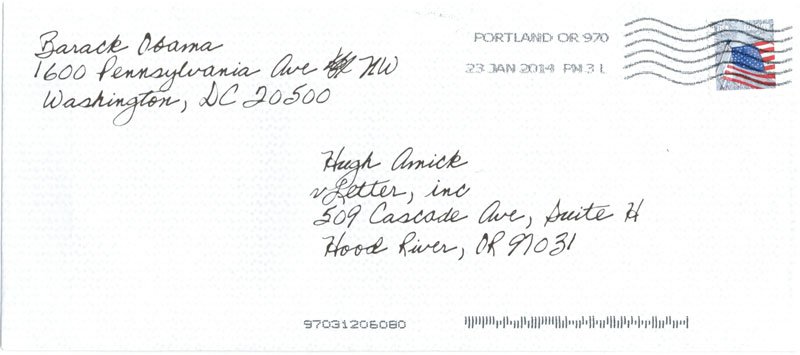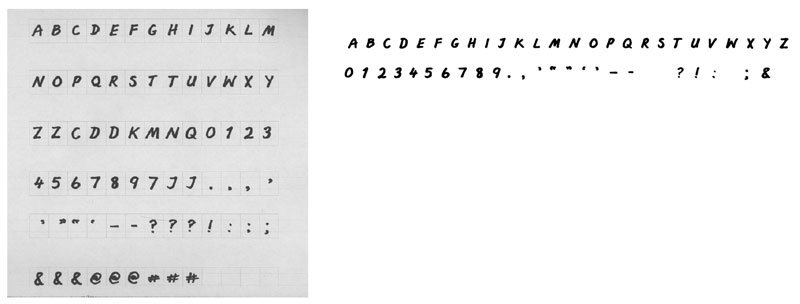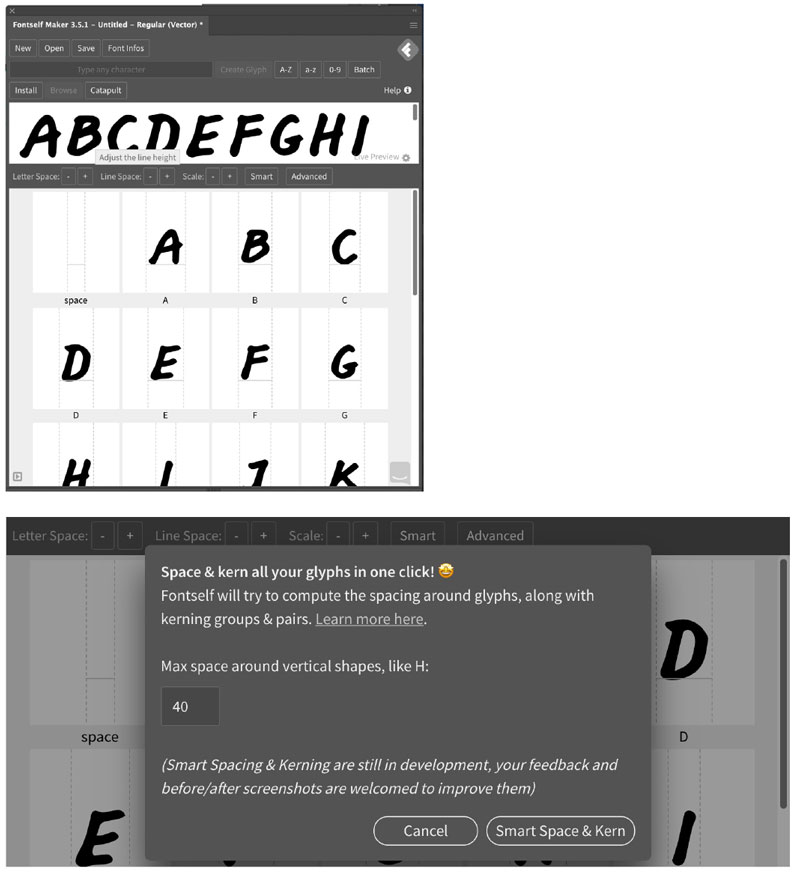
Working with Handwriting Fonts
Handwriting fonts can help you connect with your audience—just be sure to avoid the clichés.
Playful, elegant, or quirky, type with a handwritten vibe can add authenticity or informality—or possibly both—to your print or screen projects. Handwriting fonts accentuate the personal and the organic. Used well, they can take a message and give it that extra something—be it warmth, friendliness, or humanity. Nostalgia is a powerful emotion and handwriting fonts can tap into fond memories. Like a typewriter font, handwriting reminds us of a pre-digital age—a mythical time when everything was cheaper, politicians were honest, and summers were longer. They can also convey a personal relationship between designer and audience. As consumers, we’re not stupid. We know it’s just a font, but we’re happy to suspend our disbelief—just as we do when watching a film or play. The conventions of drama differ from real life, and we accept them. Just as we seek out fiction to experience other lives and escape the humdrum of our own, we like to read handwritten type to escape the 9-to-5 of neutral body fonts. We’re aware of the artifice, but we’re happy to play along—up to a point.
But before we go any further, let’s start by defining what we mean by handwriting font. Distinctions between calligraphy, script, and handwriting are blurry—and I will wander back and forth over that blurred line, but here are some things to think about. Calligraphy involves the frequent lifting of the pen, whereas script is written with as continuous a line as possible. Both may be true of a handwritten font, but not necessarily. When someone mentions handwriting, we most likely think of cursive lettering. But it doesn’t have to be. The term handwriting font is really a catchall for a font that was done by hand, or perhaps more accurately, that was made to look like it was done by hand. As well as cursive options, this can include block lettering, chicken scratchings, the permanent marker look, and a wealth of other options that run the gamut from elegant and flowing to erratic and illegible (Figure 1).
Figure 1. Some of the different styles of handwriting font
Sourcing Handwriting Fonts
All the usual suspects: Dafont, Google Fonts, and FontSquirrel have an abundance of handwriting fonts available for download. In InDesign, Illustrator, and Photoshop, you can use the Fonts menu to filter by classification (Figure 2).
Figure 2. Filtering fonts by classification (left), finding and activating fonts using Find More, and finding fonts using the tags on Adobe Fonts (right)
Combine this with Find More option, and you can scroll through and preview all of the handwritten type available on Adobe Fonts and activate fonts on the fly. (If this seems too good to be true, well, it is—it’s often quicker to go directly to the website and preview and activate the fonts there.) On the Adobe Fonts site, you can also use the new tags feature to help refine your search. Unfortunately, there’s no easy way identify those fonts that offer stylistic alternates.
We don’t have to look far for inspiration. In fact, we can start with just pen and paper. Even if your handwriting has atrophied from lack of use in the digital age, it is still brimming with personality. (It really isn’t as bad as you think. And even if it is, that’s a look in its own right.) If all you need is a small passage of handwritten text for seasonings, then you can scan and vectorize your handwriting, or draw it directly onscreen using the Pencil or Brush tool in Illustrator. (See “How to Make Your Own Handwriting Font.”)
To see how others are using handwritten text, sites like Pinterest, Behance, and Fonts In Use, are treasure troves of inspirational examples (Figure 3).
Figure 3. FontsInUse.com is useful to find examples of how specific handwriting fonts have been used in projects.
Venturing outside (a big deal in these times), chalkboards, vintage signs, and graffiti can provide great ideas—take snapshots with your phone, and you’ll soon have a collection of source images to draw upon. Browse the shelves of any bookstore, and you’ll see many examples of the handwritten look (Figure 4).
Figure 4. Examples of book cover designs using handwriting fonts or hand lettering
You would expect to find this for children’s books, but it’s also true for fiction and cookery titles, where the use of hand lettering conveys the book’s uniqueness in a crowded market. Of course, it’s not always easy to tell if the designer has used a font or if the text is hand lettered, but that’s the point really.
Giving the Type Personality
Just like real handwriting, a handwriting font should have personality, which when you think about it is an oxymoron. Just because a font is called something like My Groovy Handwriting, doesn’t mean it’s organic. How can a product that is digitized, infinitely reproducible, and predictable, convey something that is as unique as a fingerprint? Repeating letters look the same in typesetting, but they aren’t identical when actually penned. To compensate for this and to add more personality, choose a typeface with stylistic alternates. You then can use the Glyphs panel or the Type Contextual Controls to swap as many of the repeating letters as possible with alternate versions of the glyph (Figure 5).
Figure 5. Use stylistic alternates to give your type more personality. Here I am using the Glyphs panel, with the Show menu set to Alternates for Selection. I prefer this to the Type Contextual Controls because the Glyphs panel lets you increase the view size of the glyphs. Only a minority of fonts come with alternates, so their availability might be a major factor in your choice of typeface.
Like drum solos, handwriting fonts should be deployed sparingly so that they don’t outstay their welcome. Everyone loves a dramatic display, but a little goes a long way. With large personalities and often eccentric flourishes, handwriting fonts are difficult for continuous reading—as challenging to the eyes as a drum solo is on the ears. Instead of setting whole passages or paragraphs in a handwriting font, limit their usage to just a phrase, a few words, or even a few characters (Figure 6). With fewer repeating letters, the type will look unique, and there’s the added bonus that the larger body of text will be readable.